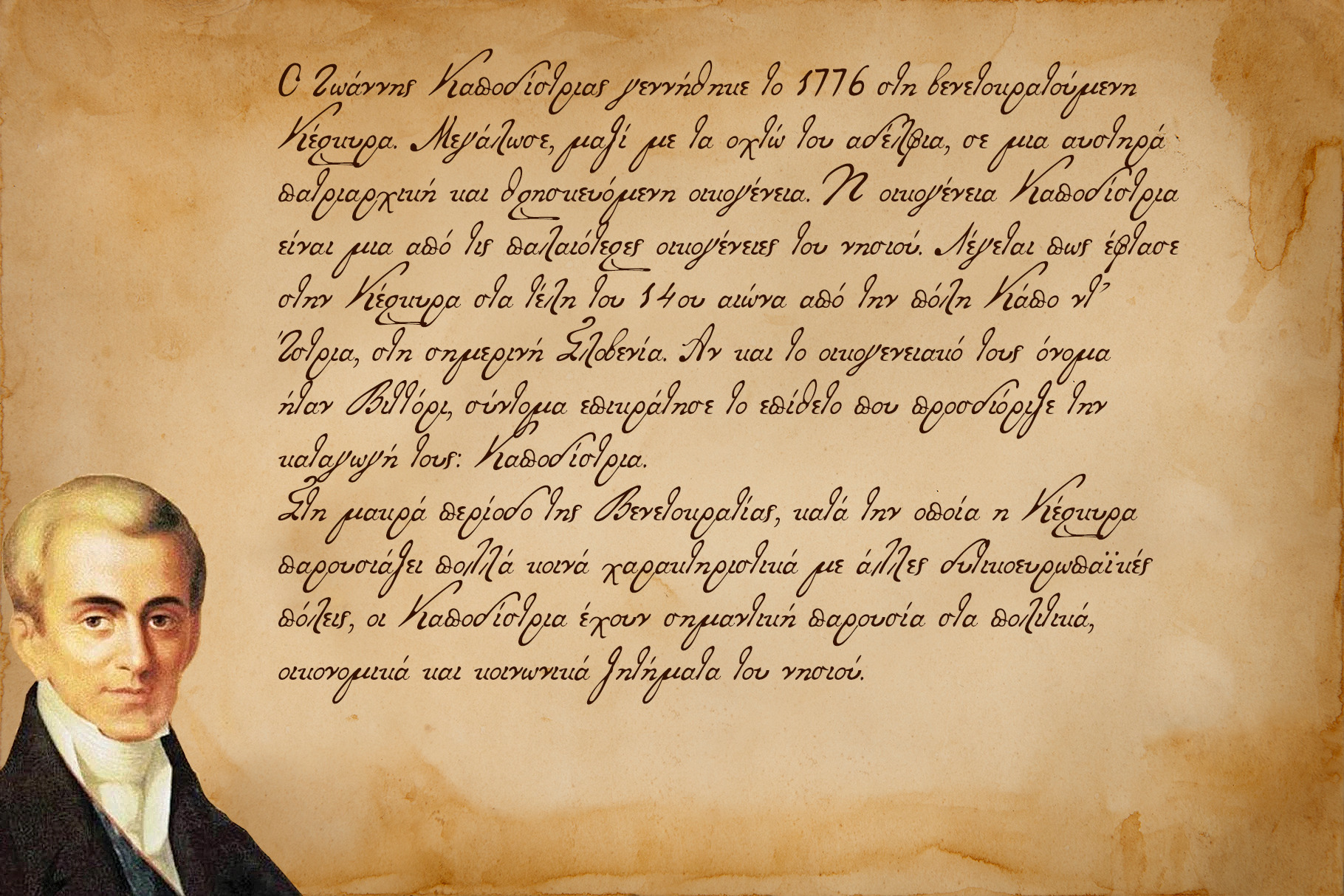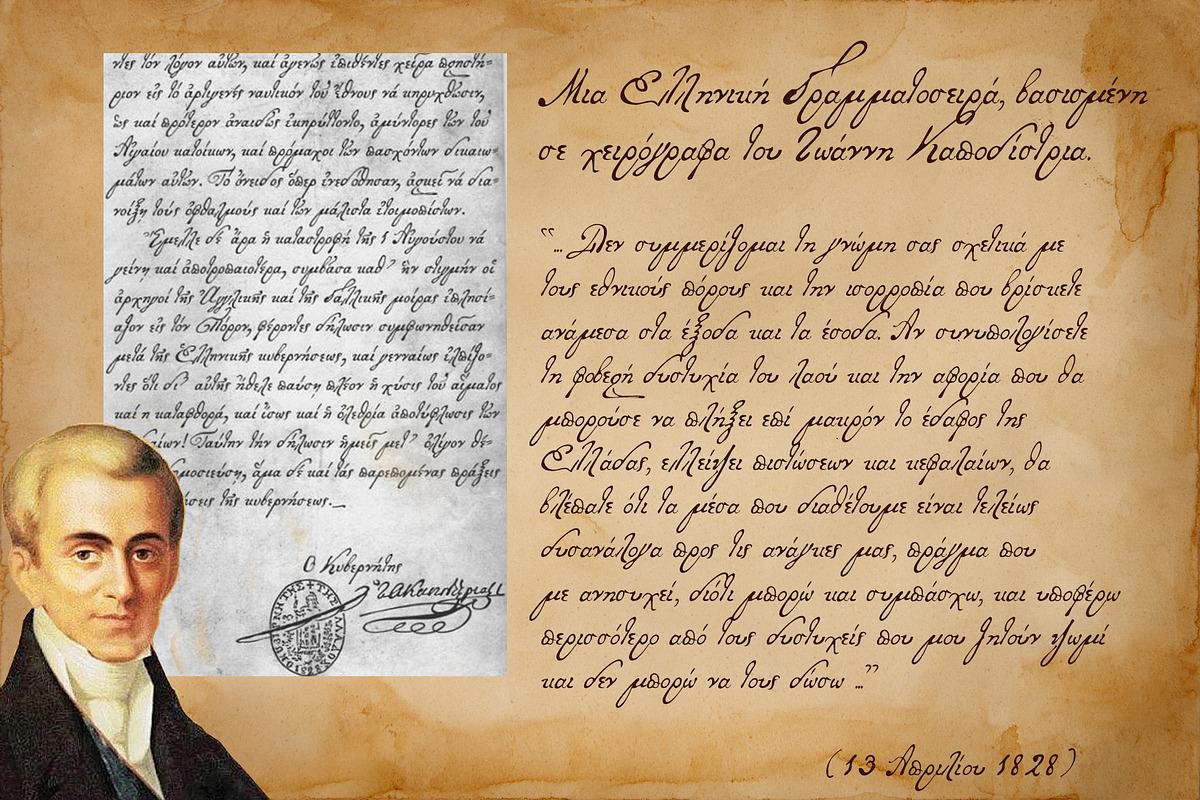
Ioannis-K font
Ioannis K is a font based on Ioannis Kapodistrias manuscripts. Only Greek letters (Uppercase / Lowercase). Μια ελληνική γραμματοσειρά βασισμένη σε χειρόγραφα του Ιωάννη Καποδίστρια.